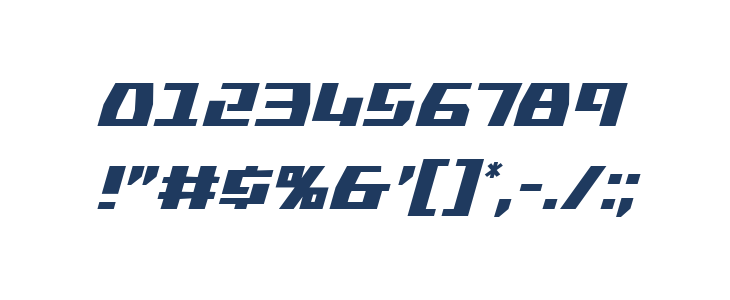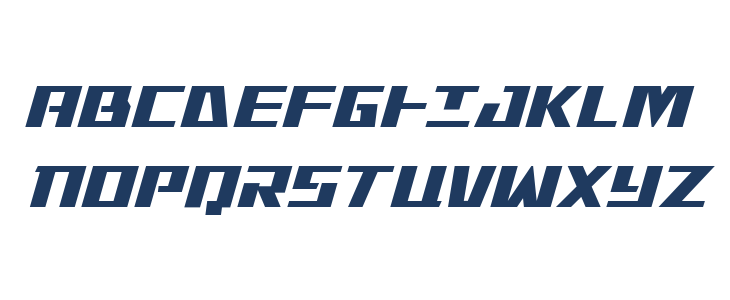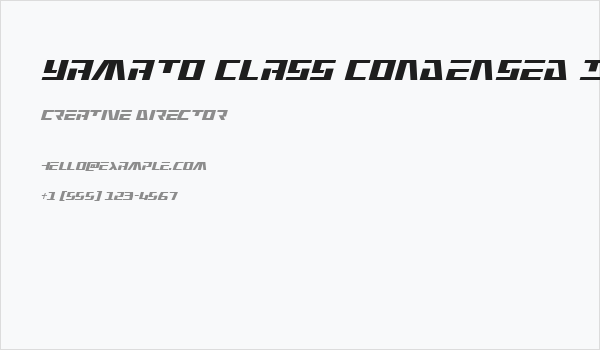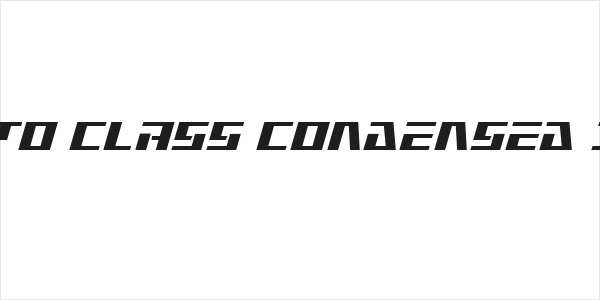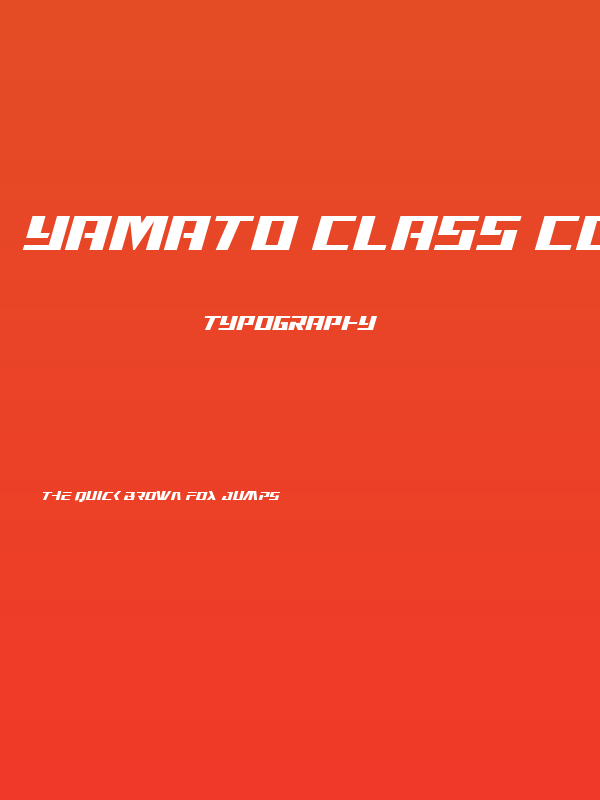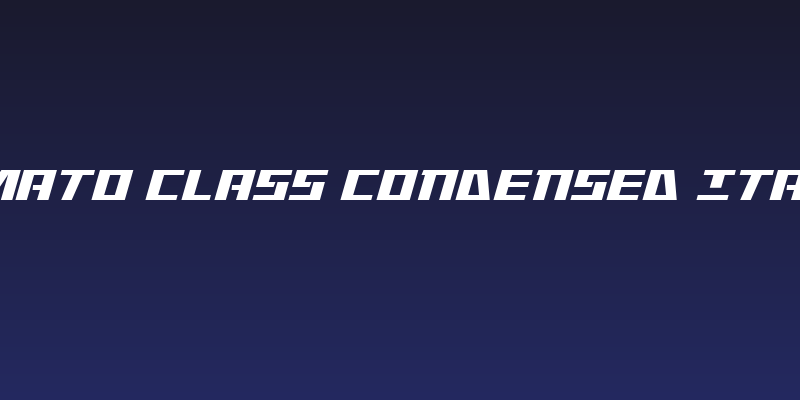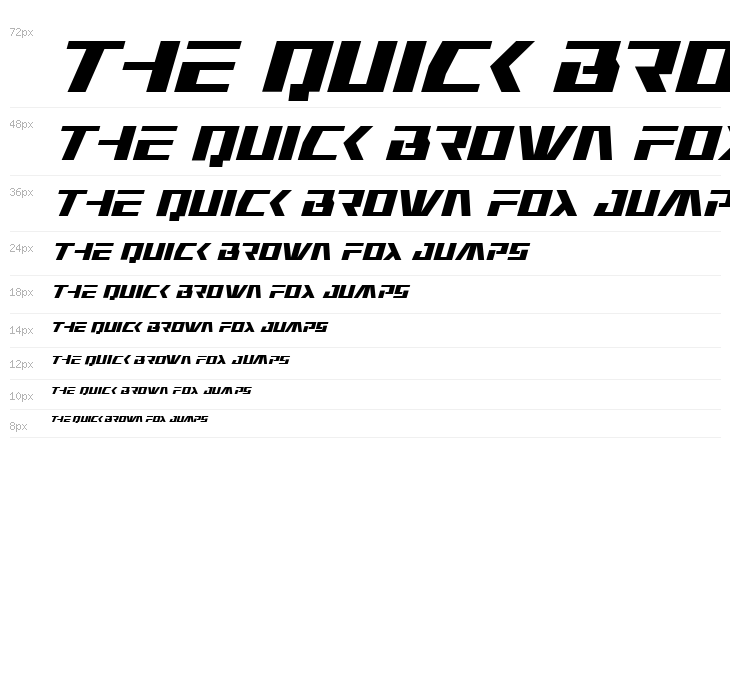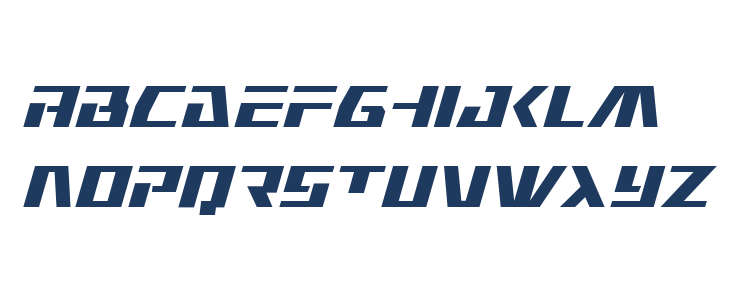
Yamato Class Condensed Italic Font
Yamato Class Condensed Italic Description
A geometric, angular sans-serif typeface with a condensed and italicized structure, featuring sharp edges, diagonal cuts, and a futuristic, mechanical appearance. The characters are tightly spaced, with consistent stroke weight and minimal contrast, giving a bold and dynamic impression.
| Overall Style | Futuristic, Modern, Decorative |
| Use Case | Headlines, Logos, Posters, Display text |
| Proposed Projects | Tech branding, sci-fi posters, video game titles, sports logos, event flyers. |